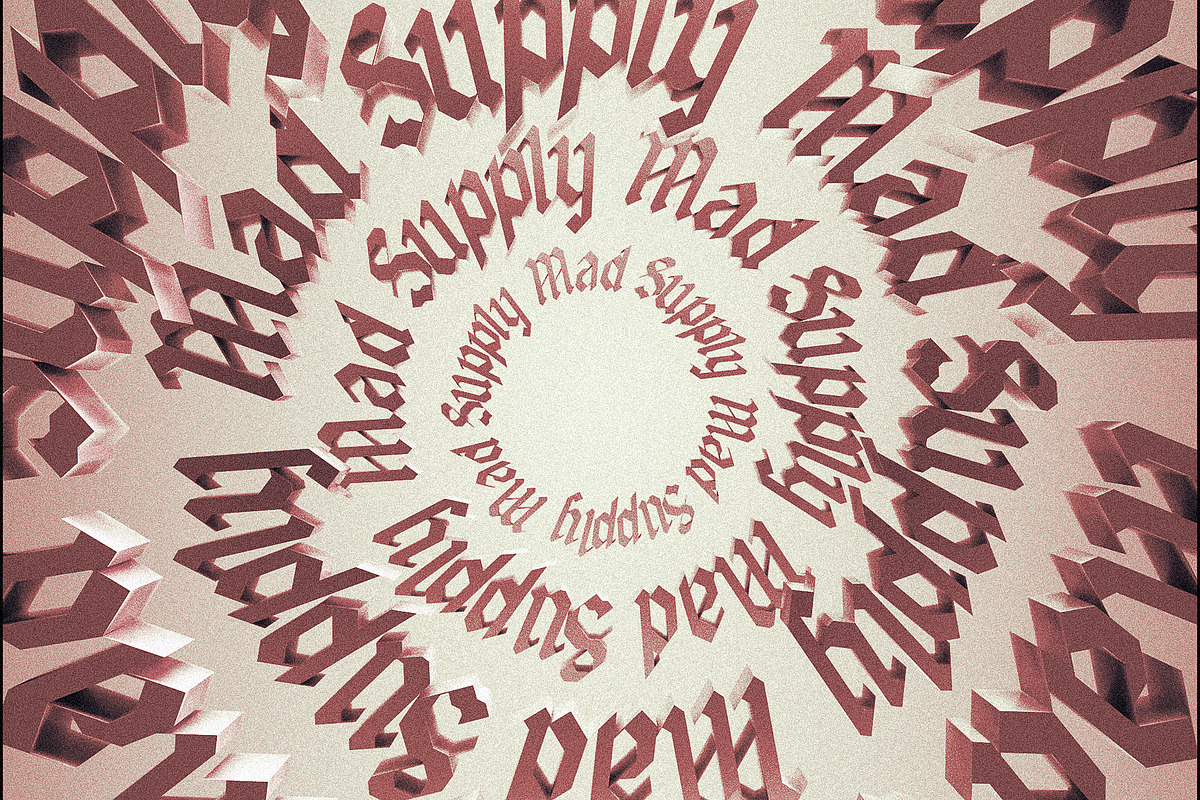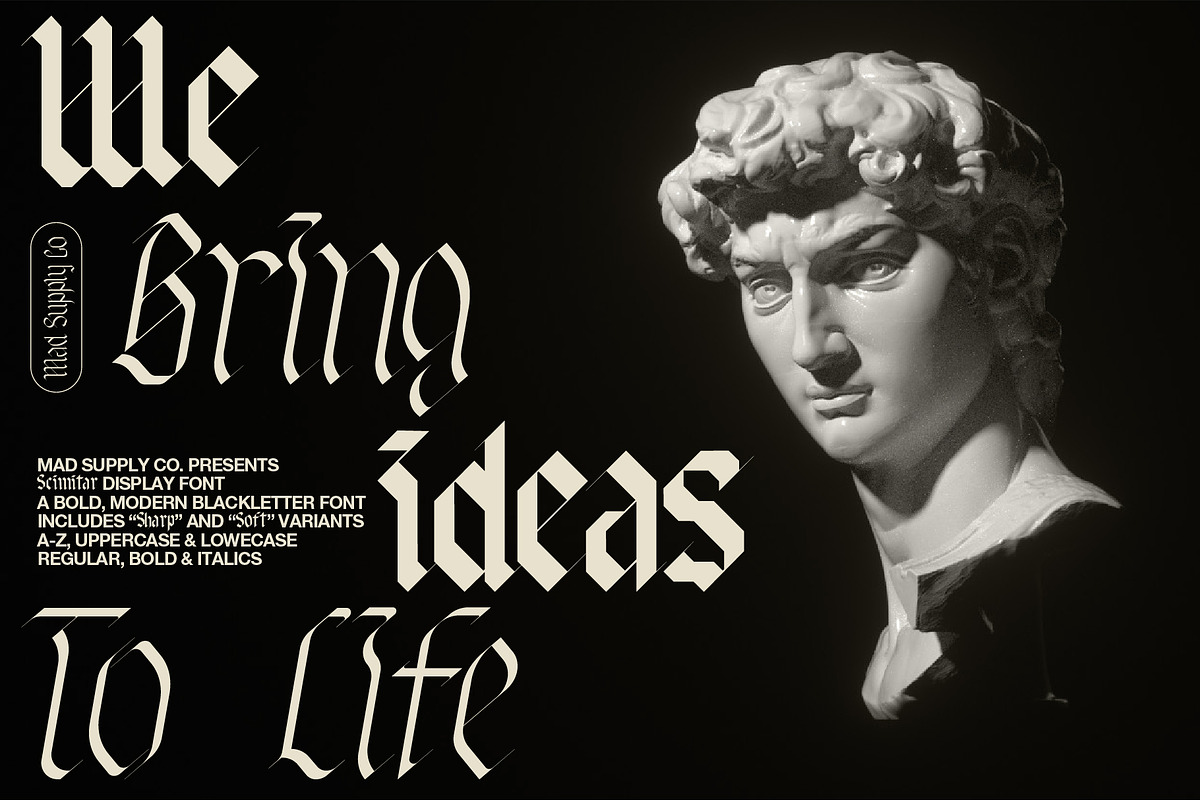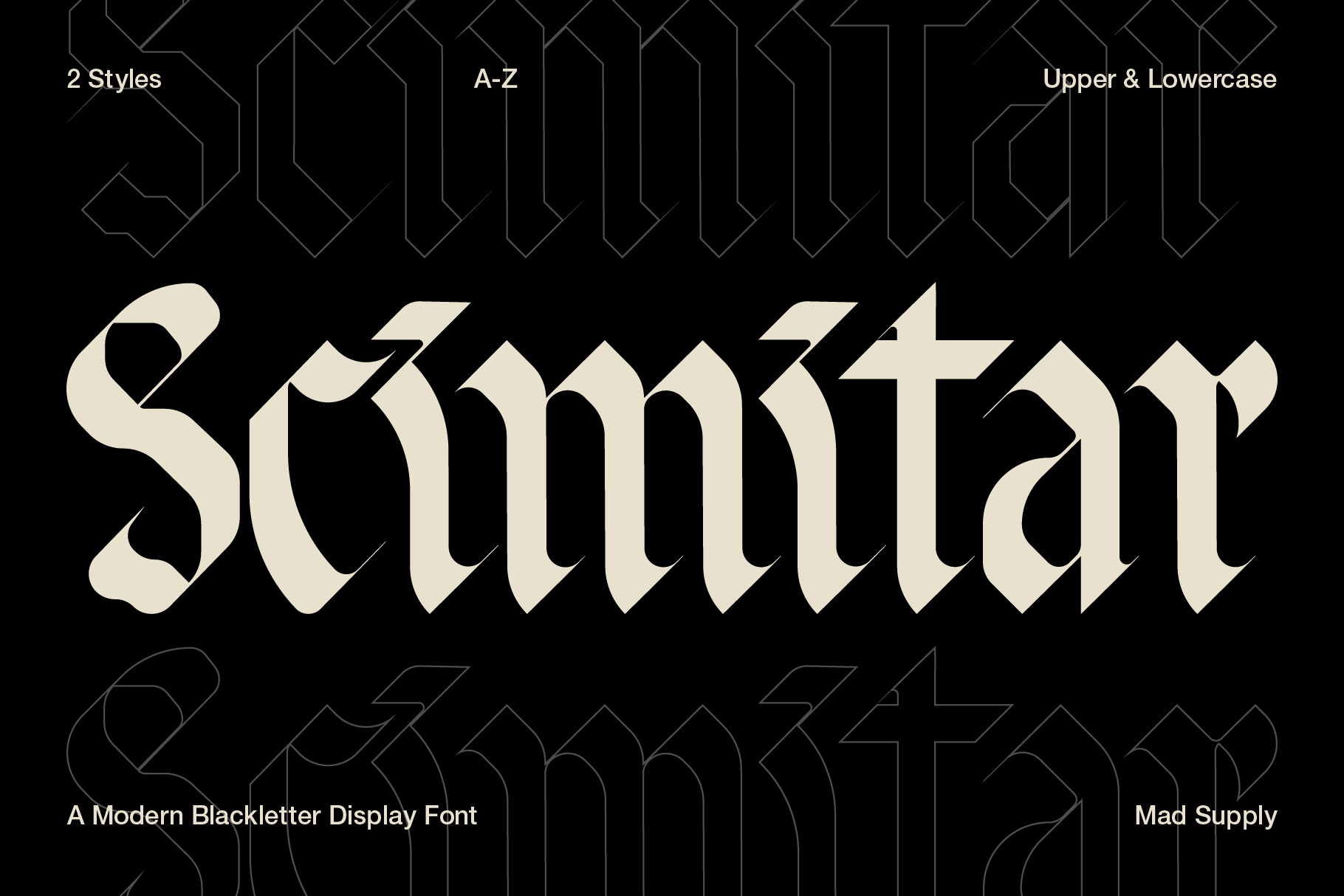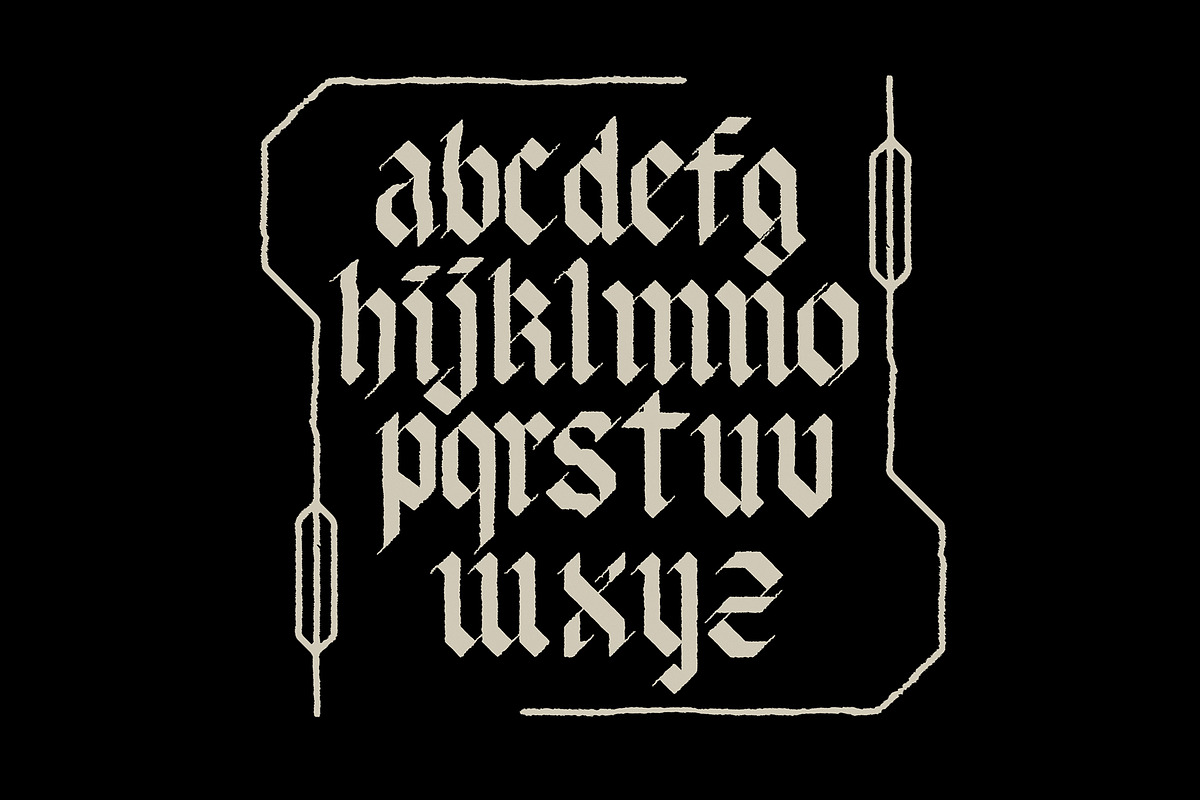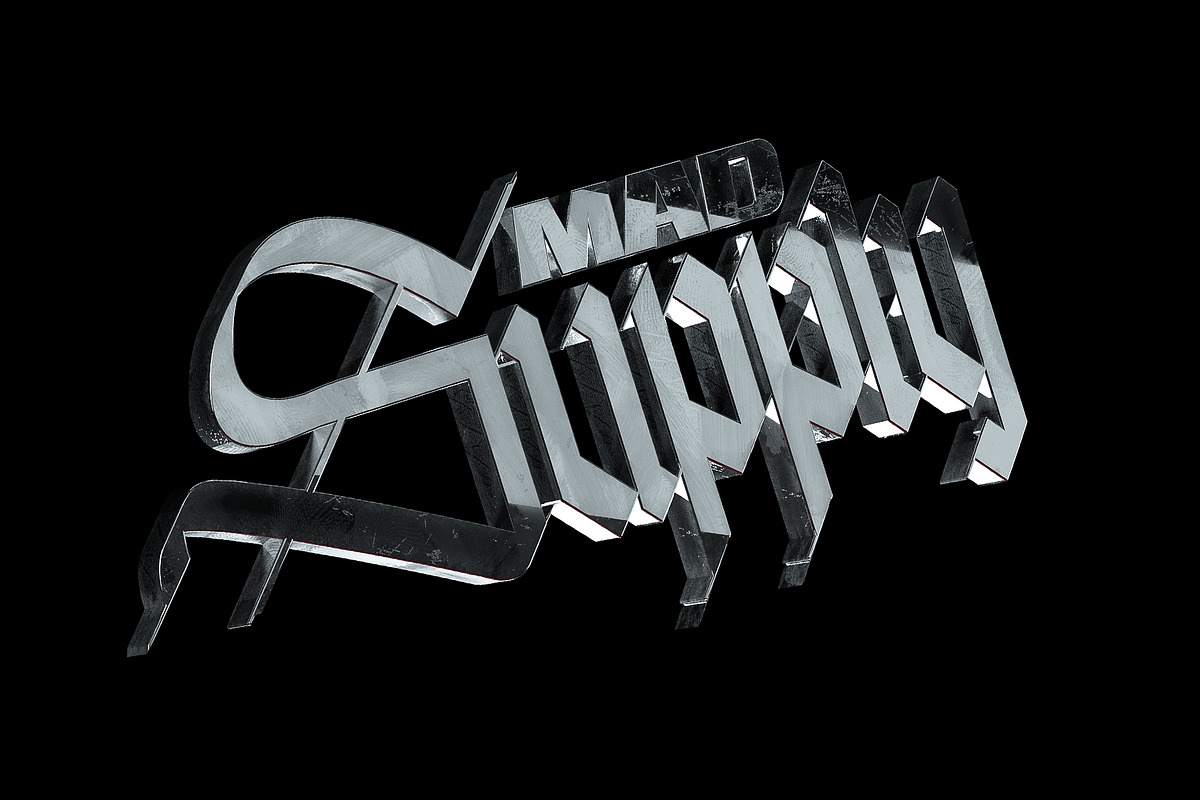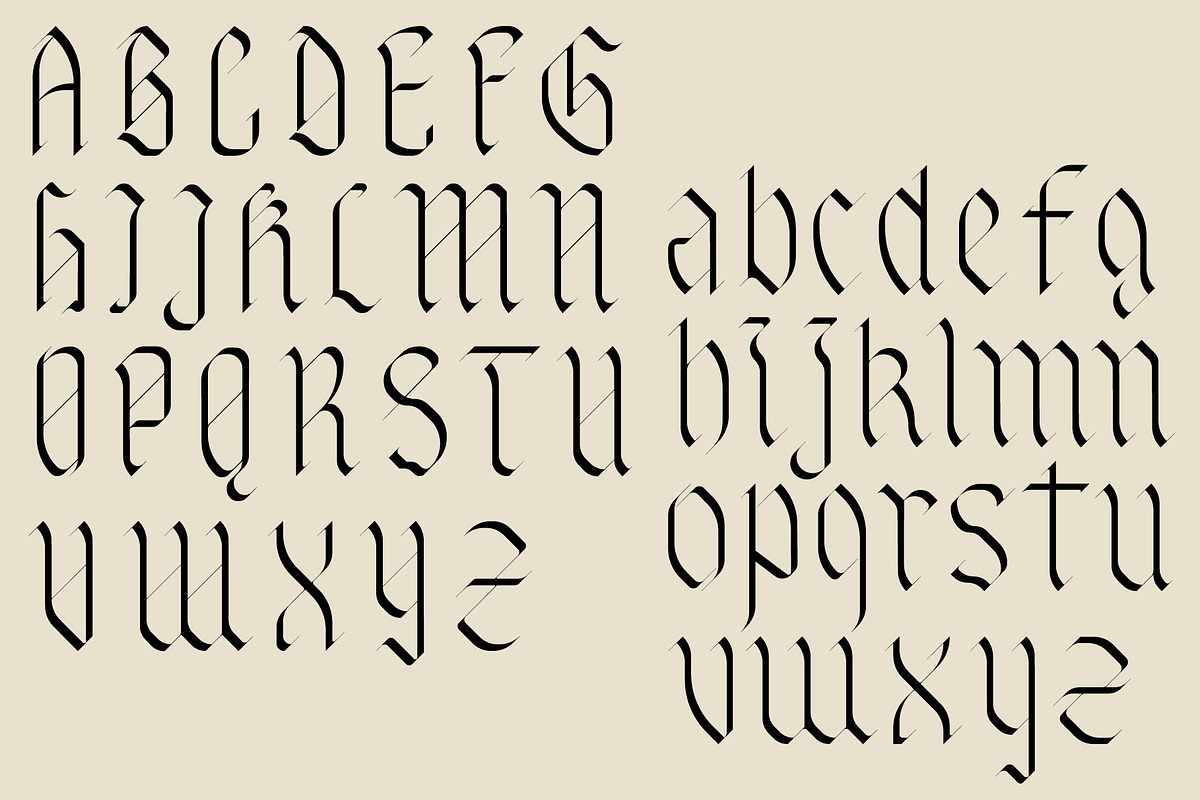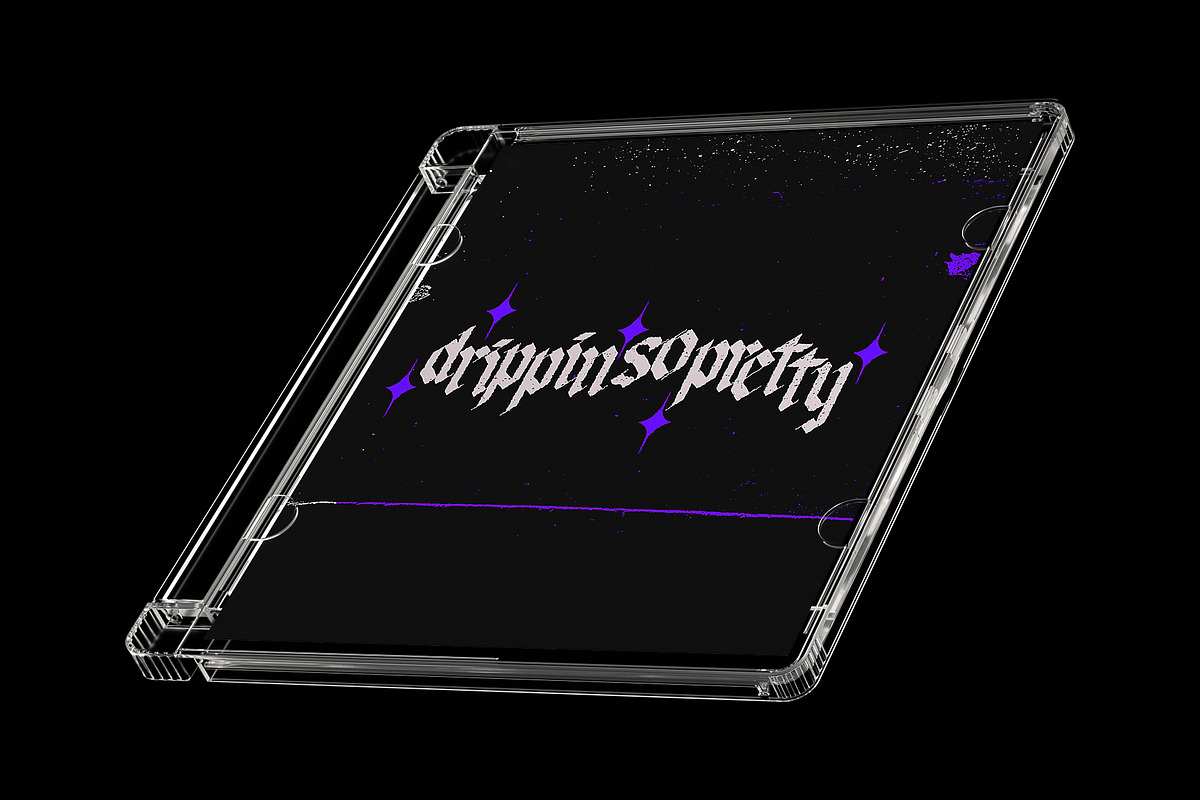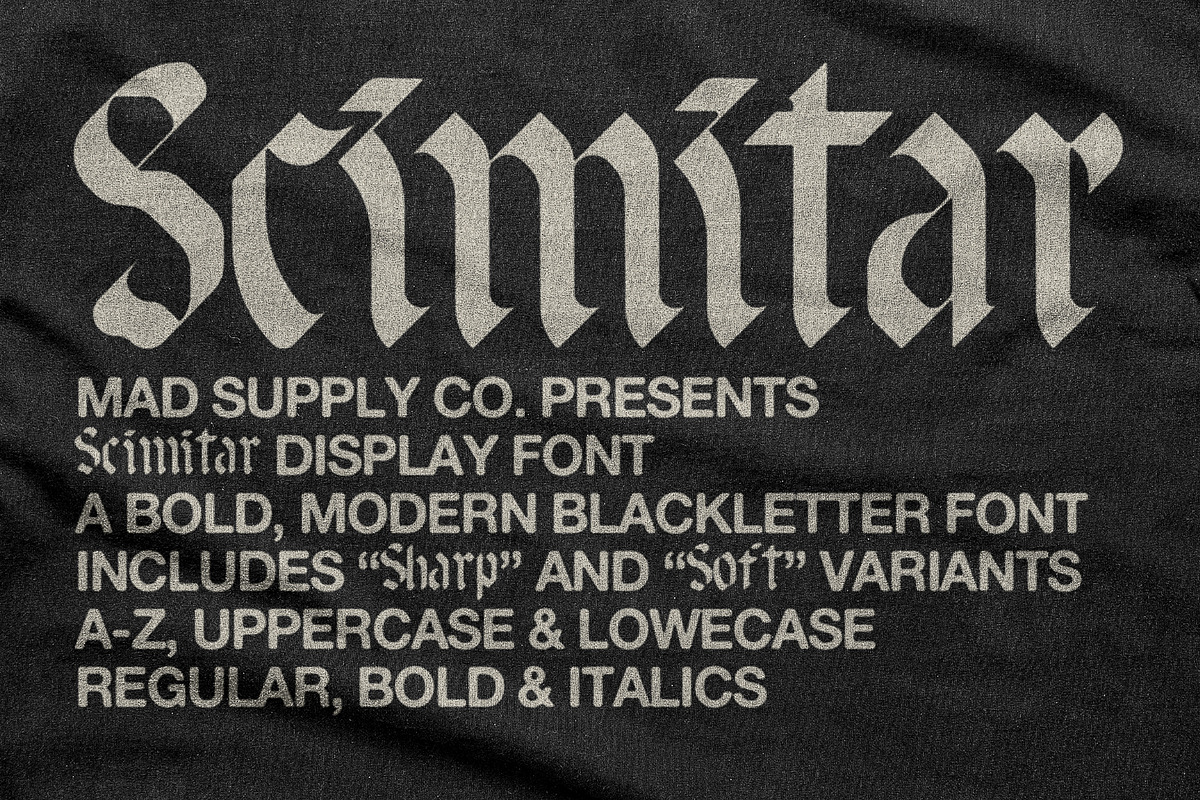
Scimitar | Blackletter Display Font
Scimitar is a modern, bold blackletter A-Z display font with acid graphic vibes. Includes 2 styles, "Sharp" and "Soft" in both regular, bold and italics. Use fo